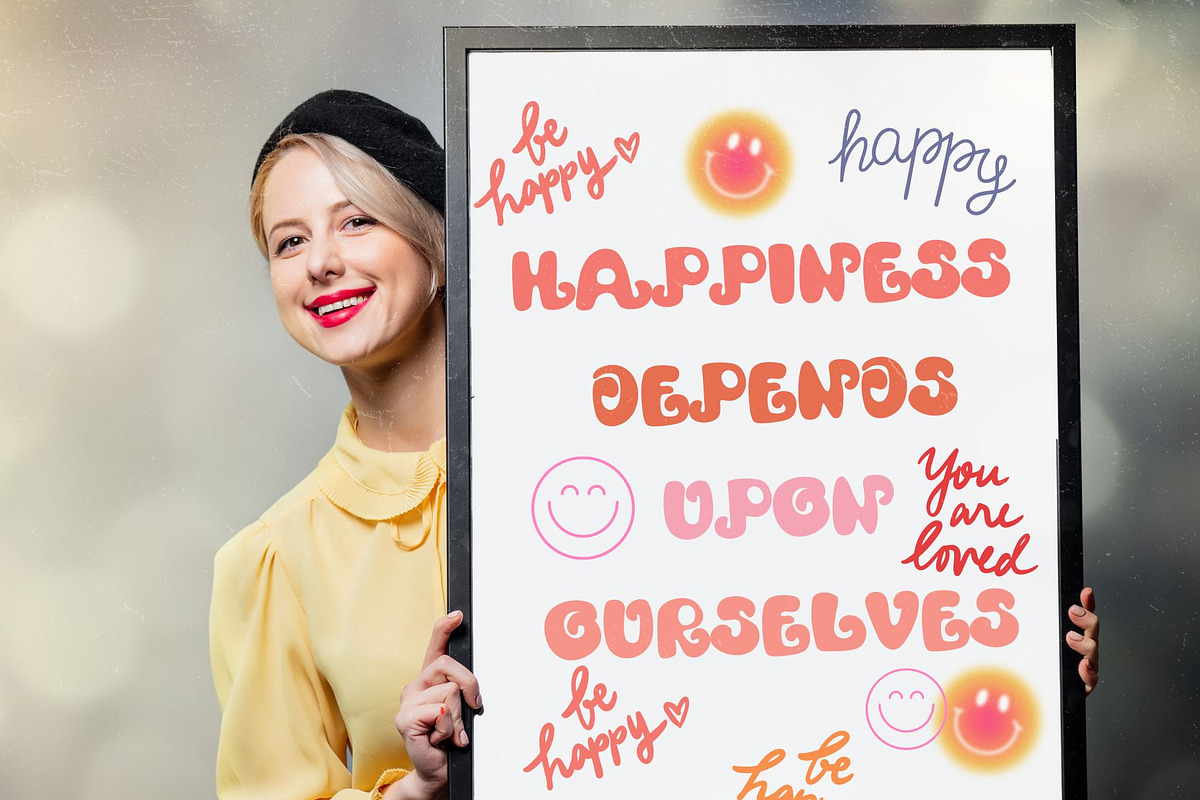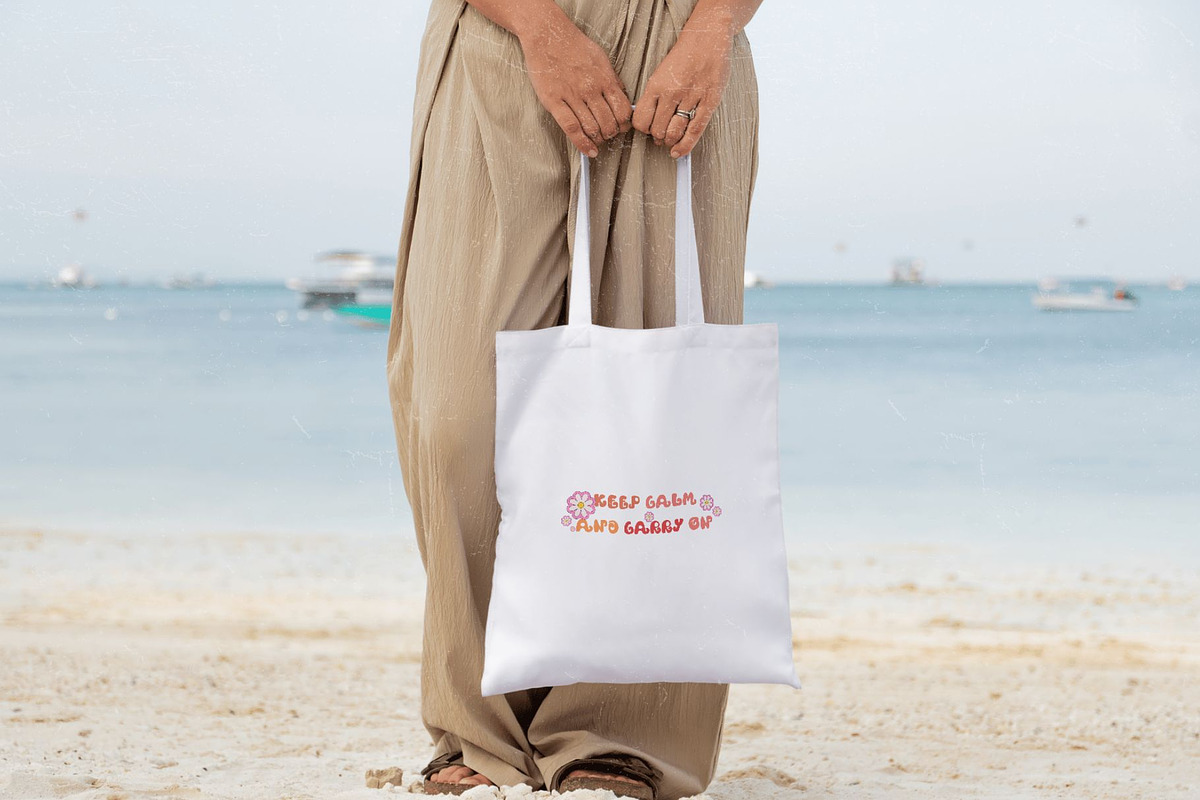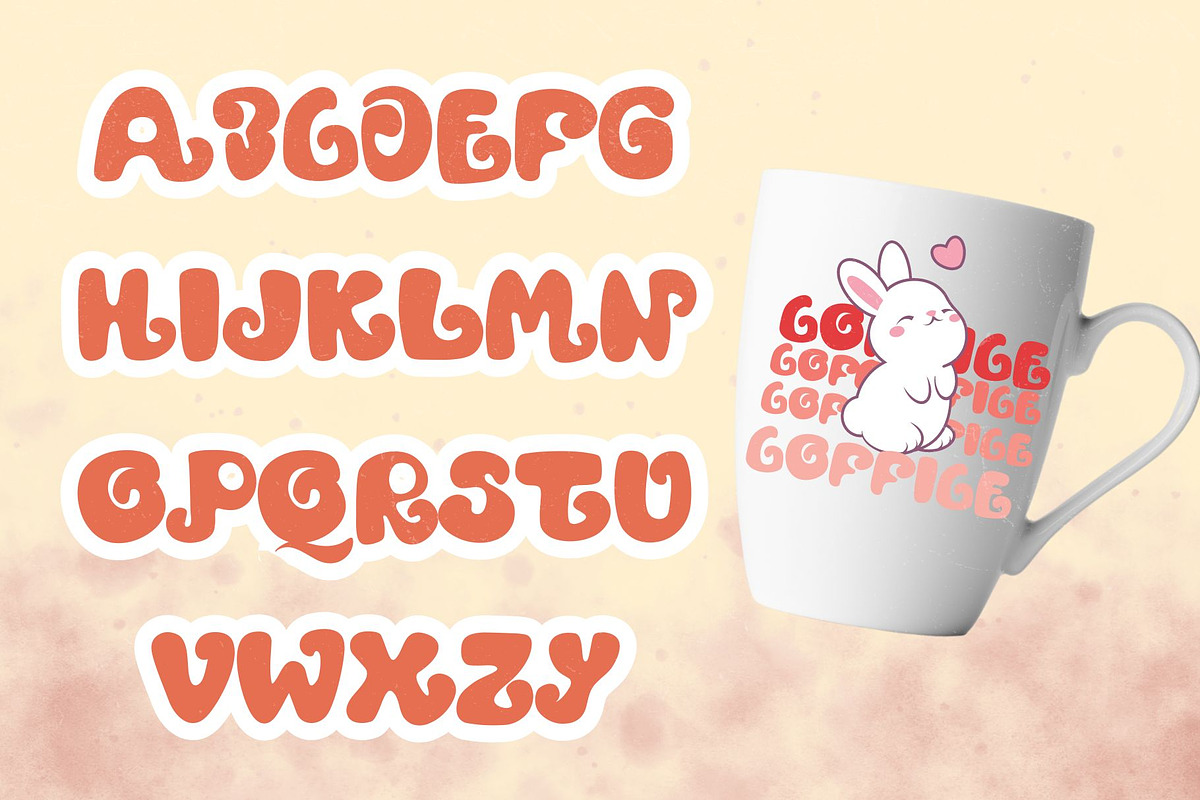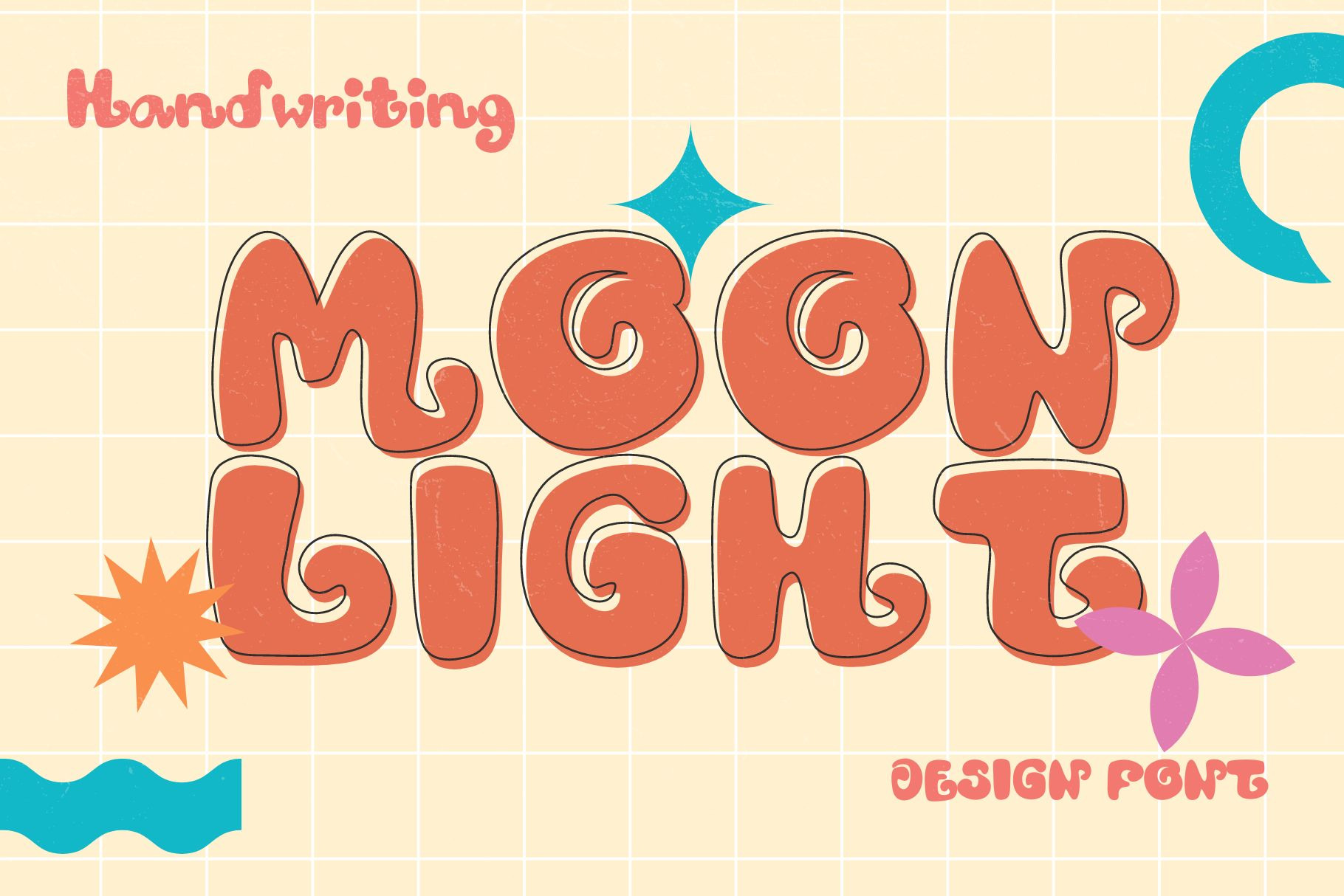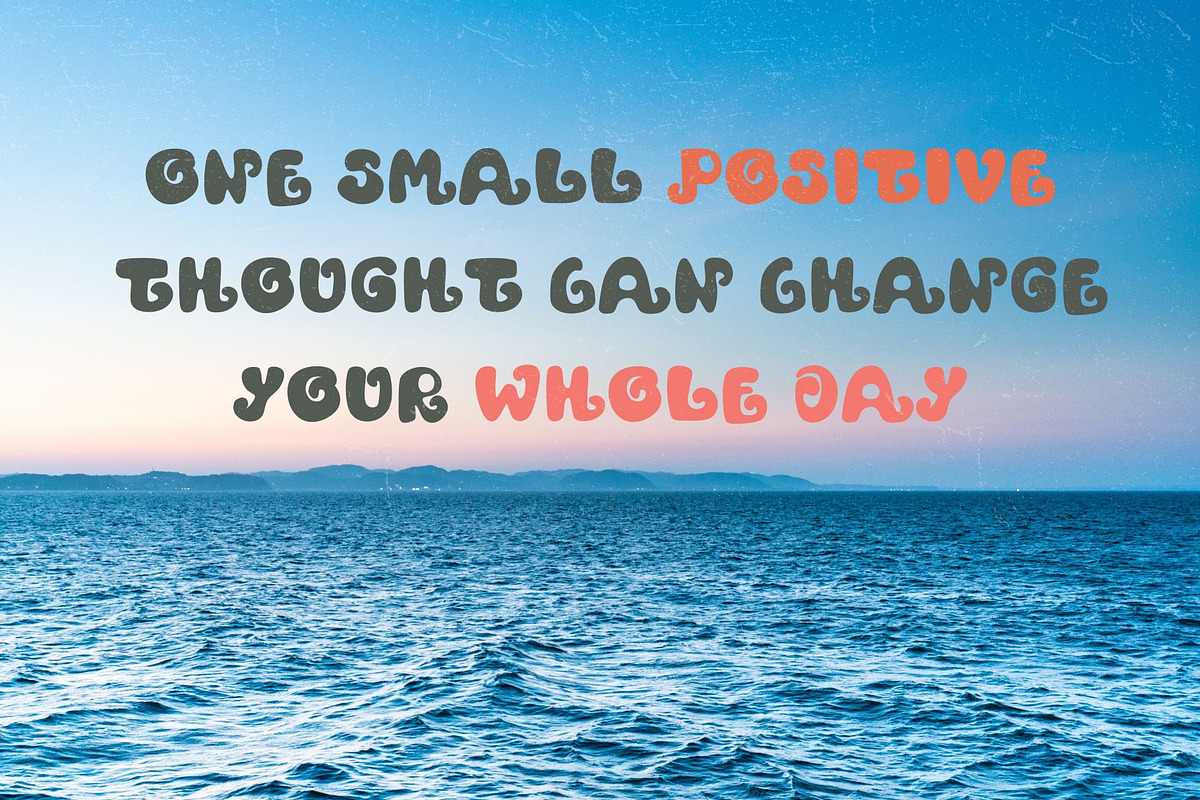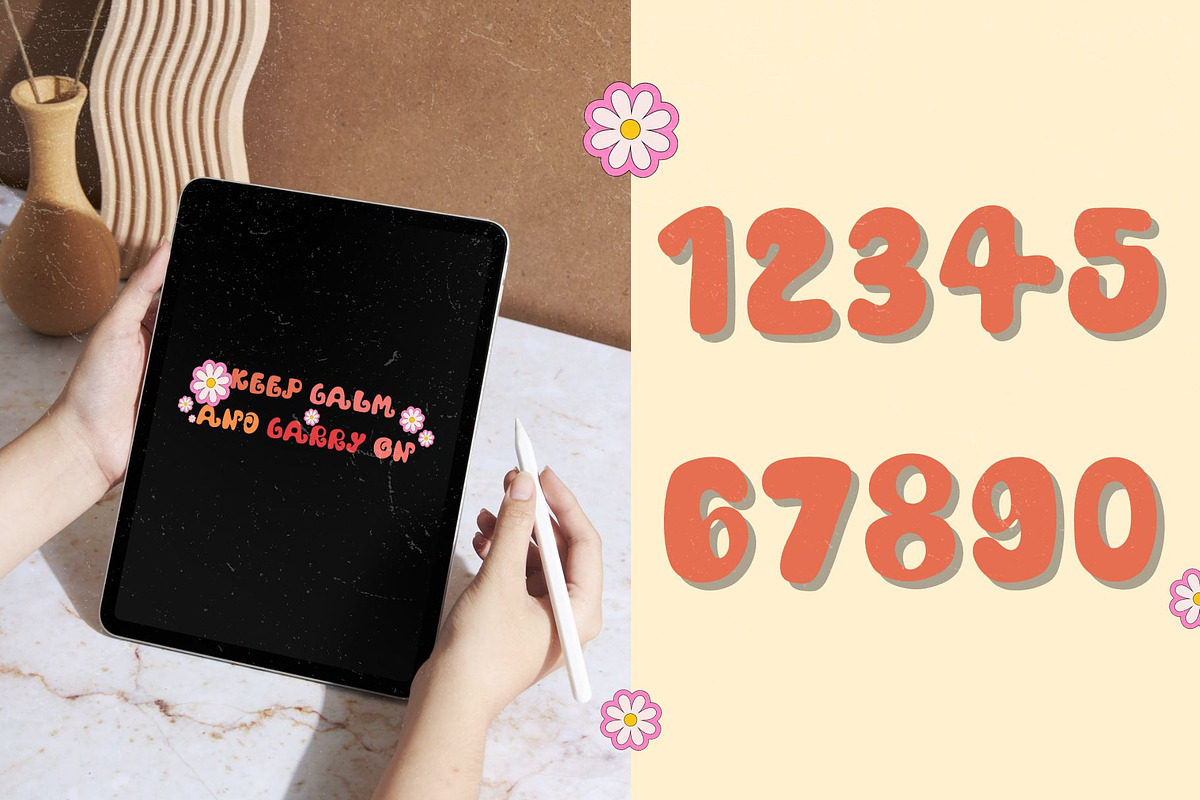
Moonlight font
Moonlight it a display handwritten font. This decorative font has been designed to feel modern, stylish, and contemporary, making your design work stand out. It can be applied to various design projects, whether it's clothing, bags, books, and more, to showcase your unique personality. Enjoy the design process!